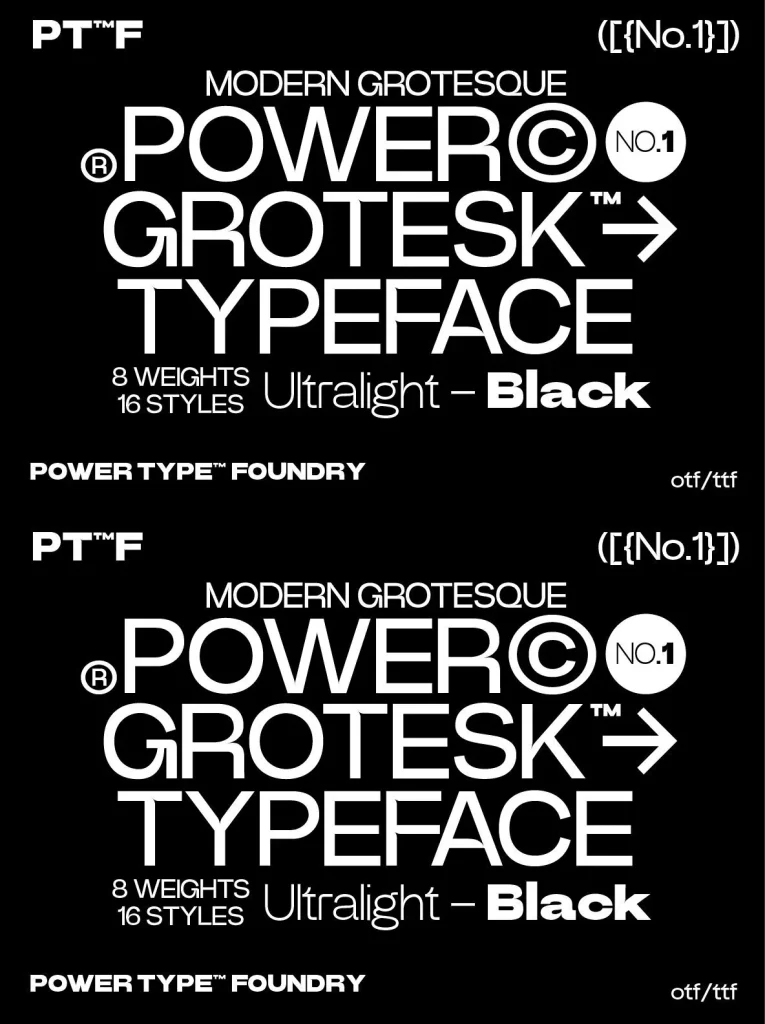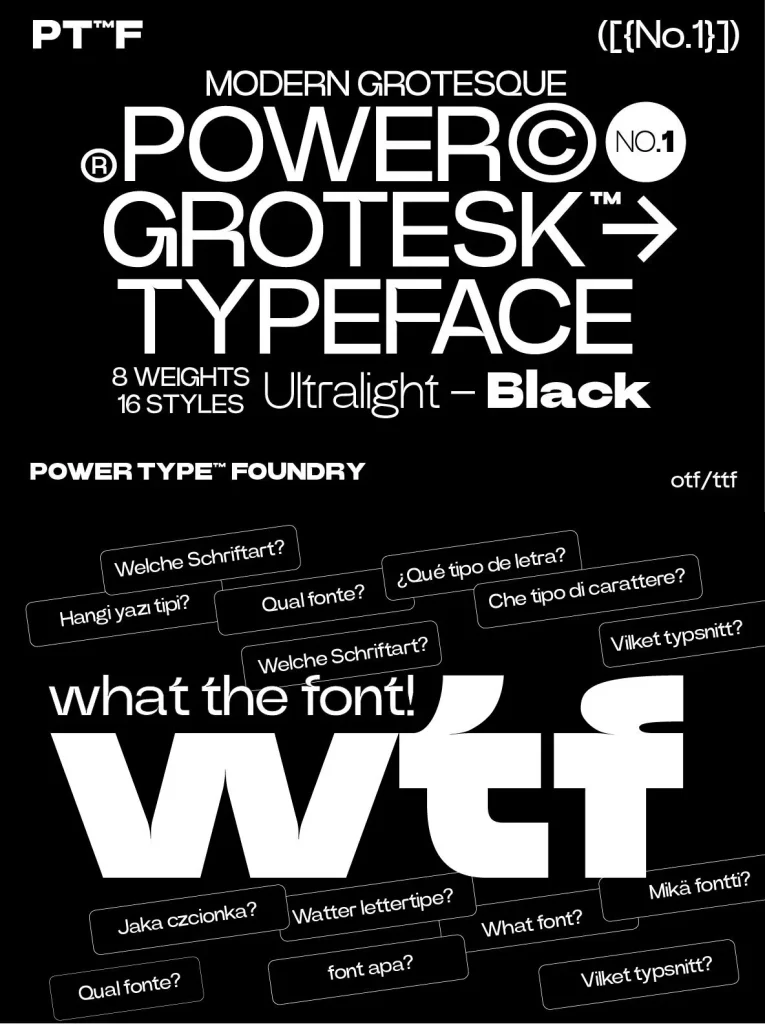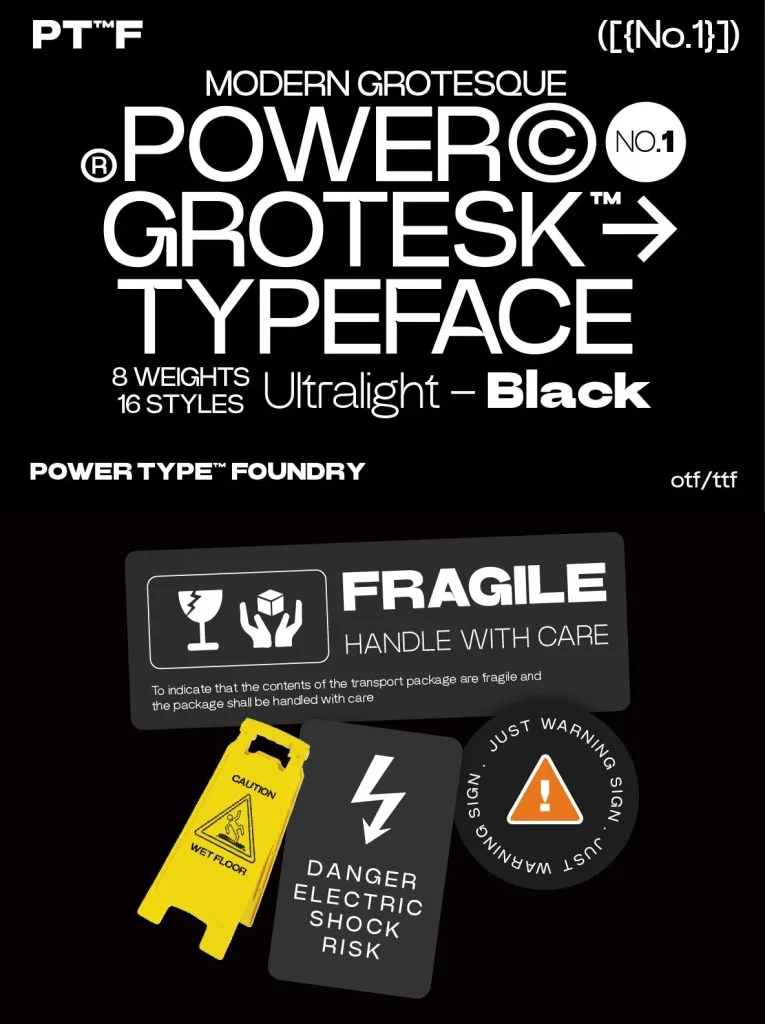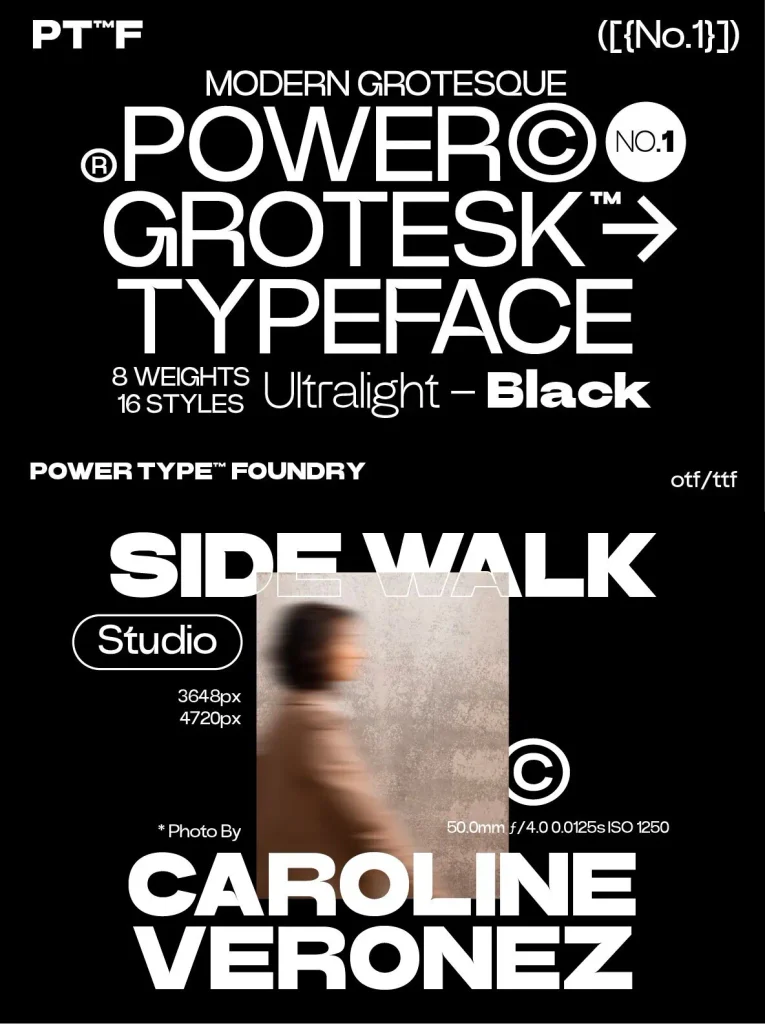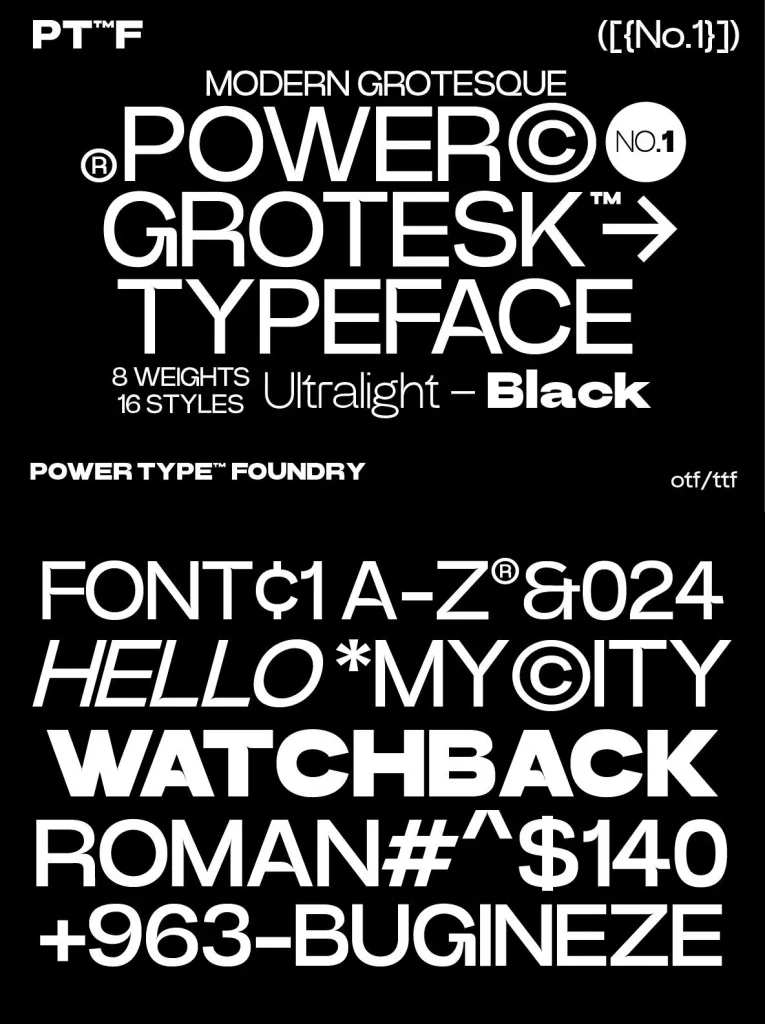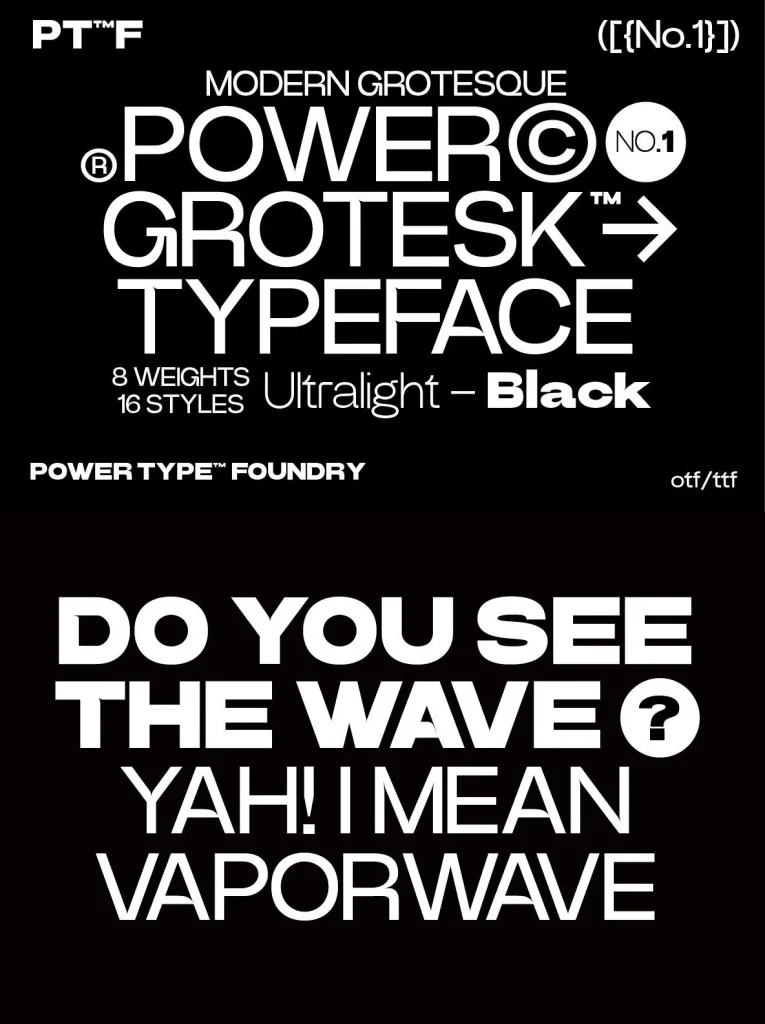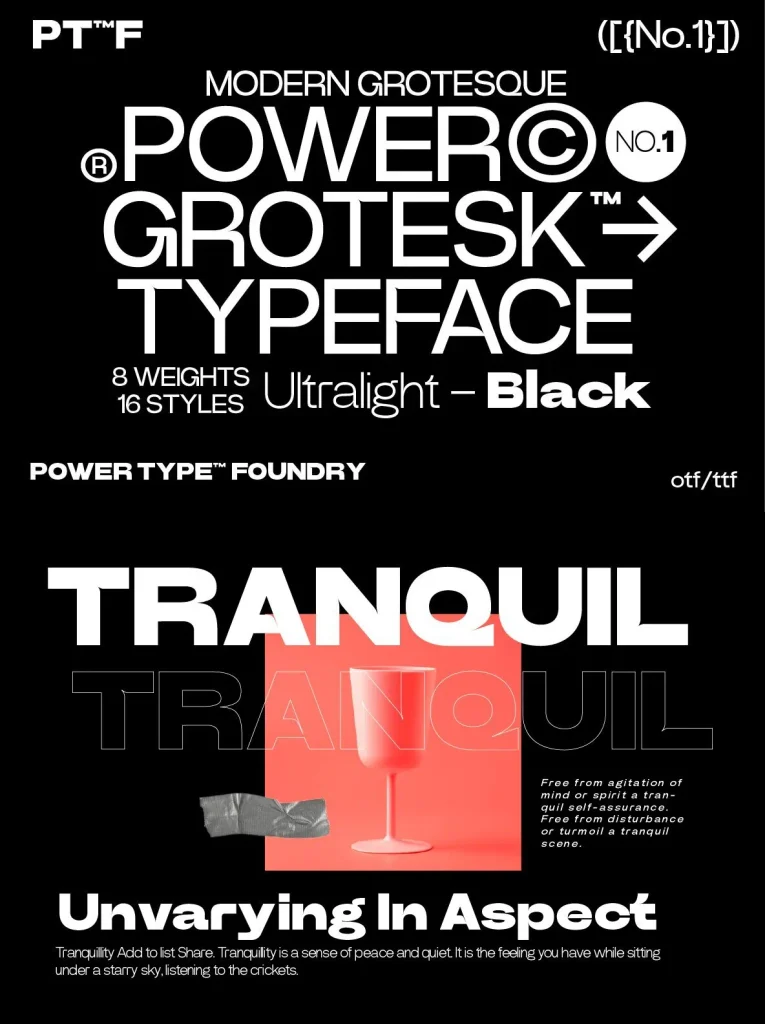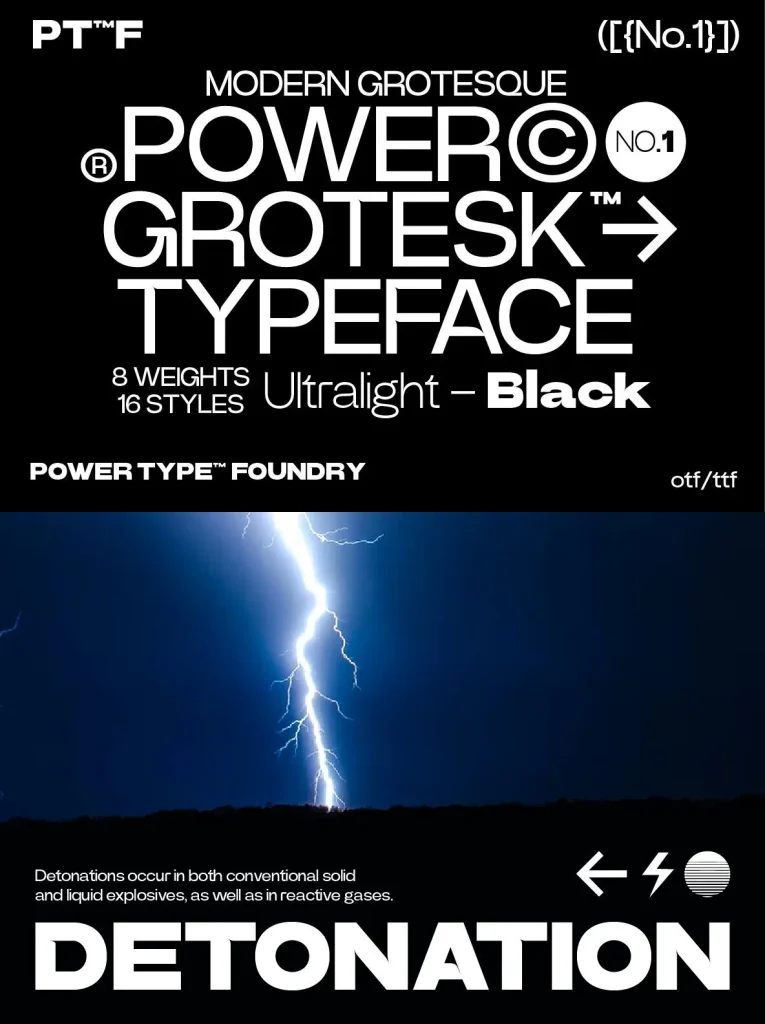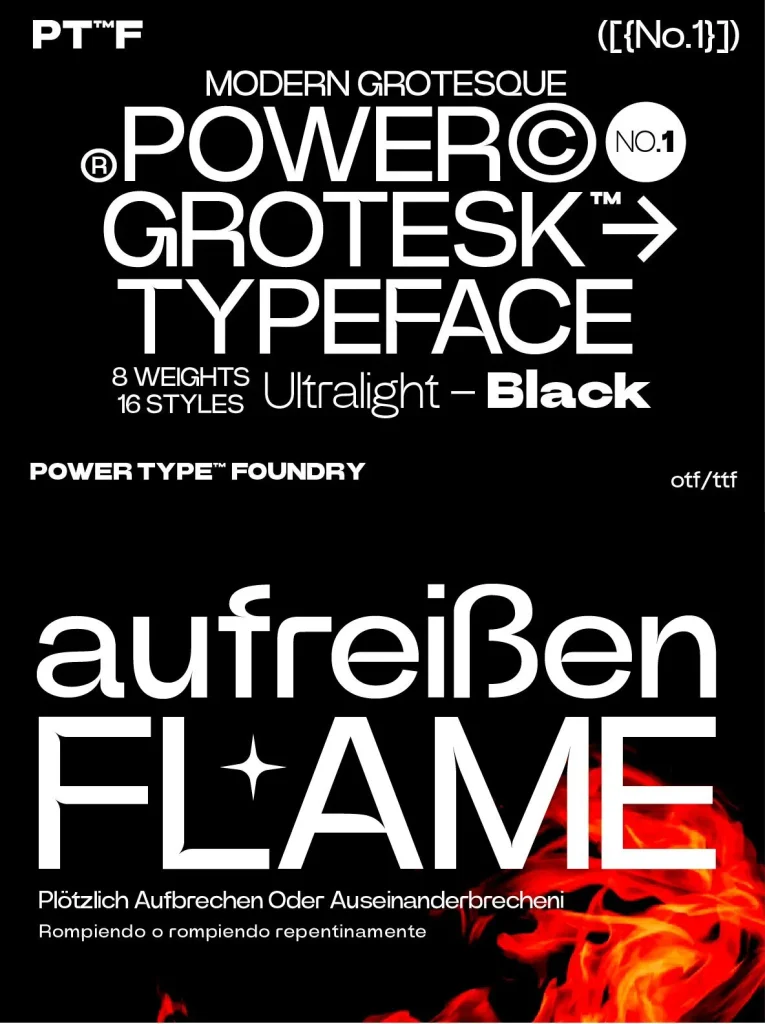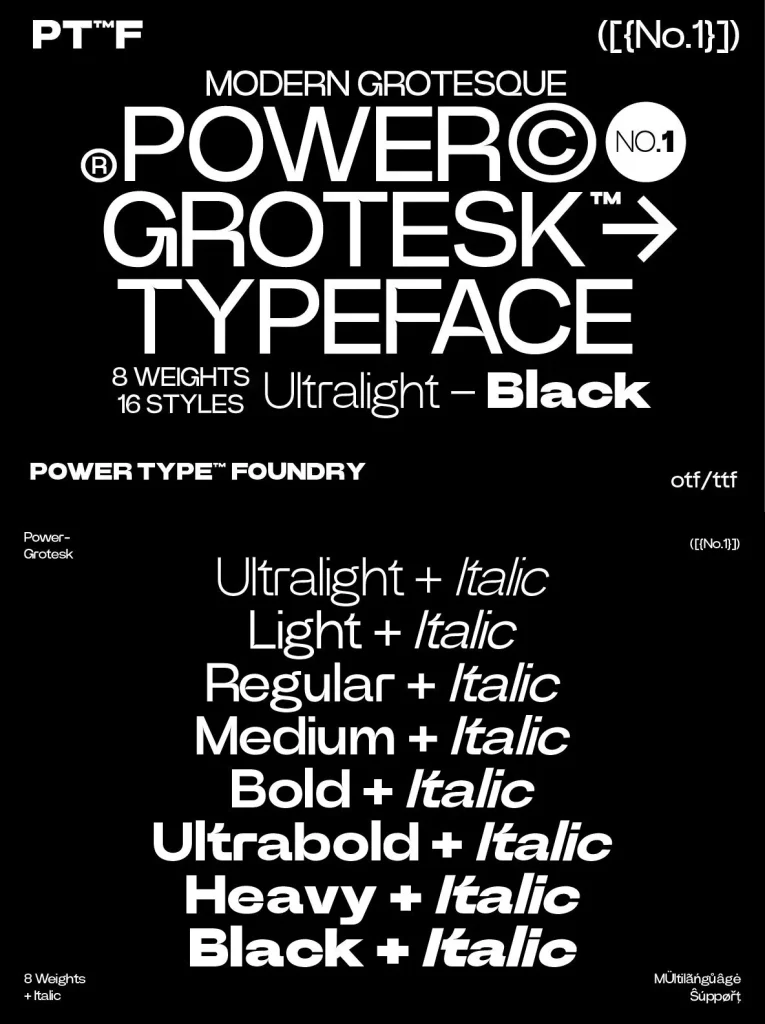
Power Grotesk Font
Power Grotesk: Geometric clarity with medieval roots
A sans serif typeface with distinctive details, built to keep its character from the thinnest to the thickest weights. The forms are slightly widened, helping typography read with confidence across a range of uses. It was drawn with legibility in mind, with strong contrast between black and white so it remains suitable at different sizes. A special feature supports reading and reproduction by trapping the right-sized ink, helping text hold together in print.
Geometric shapes and structures show clear inspiration from medieval typography. The design moves through the broad historical material that shaped modern typography, pairing contemporary details with classic styles. Power Grotesk is designed by Power Type Foundry and suits editorial typography, brand systems, and any setting that needs a sans serif with visible structure and reliable clarity.